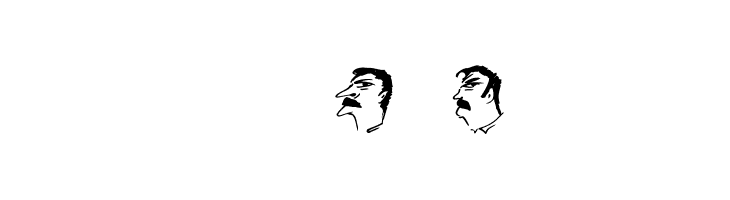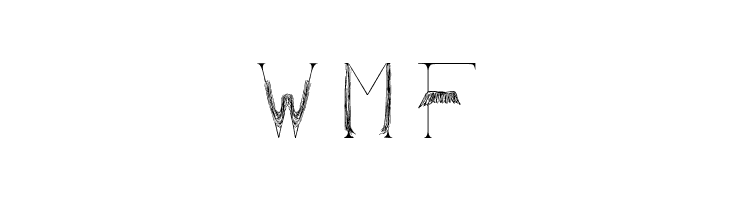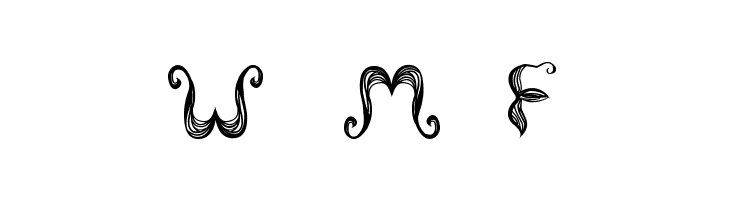
NCAA Cal Poly Mustangs Font
Gracetypestudio
A bold, angular font with a strong, athletic presence.
SarySoft-SemiBold Font
A modern, rounded font with a friendly and approachable style.
Abode Regular Font
A modern, geometric font with bold, futuristic characters.
Mv Jadheedh Trace Font
william jhordy
A dotted font ideal for educational and playful design projects.
ROBO Font
A bold, futuristic font with geometric shapes and strong lines.
Abode Light Font
A modern, geometric font with clean lines and rounded edges.
SarySoft-Regular Font
A modern, rounded sans-serif font with a clean and approachable style.
Urban Sketch Font
A bold, textured font with an urban, sketch-like style.
Sanchez Mustache Font
Font by Kris Sanchez - www.krisdesign.me
A whimsical font with mustache and beard motifs integrated into each character.
Urban Brush Font
A bold, rugged font with a hand-painted, urban aesthetic.
Explogos - Demo Font
Rautan
A modern, geometric sans-serif font with uniform strokes and clean lines.
Arab TV logos Font
A diverse set of custom TV channel logotypes in Arabic and English.
Rafa Kids Font
Font by Mustofa Nur Sidiq
A playful, hand-drawn font with rounded, irregular strokes.
Mustardo Font
A bold, dynamic script font with flowing, cursive letterforms.
MusticaPro-SemiBold Font
A modern, geometric sans-serif typeface with a clean and balanced design.
JK Abode Demo Font
Jacob King - www.typespace.co.uk
A modern, geometric font with consistent strokes and a futuristic style.
Mustard Smile Font
Font by Khurasan
A bold, playful handwritten font with a modern, friendly vibe.
mustache Font
Font by Maelle.K - Thomas Boucherie
A decorative font made entirely of mustache illustrations.
Coelacanth Display Font
A classic serif font with high contrast and elegant, sharp serifs.
peace mustache Font